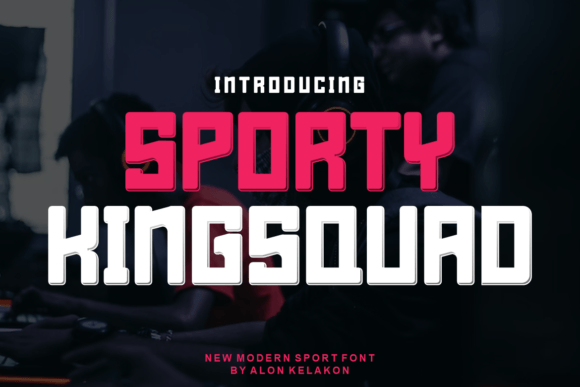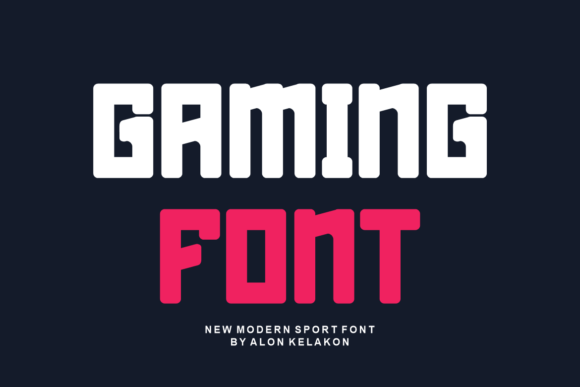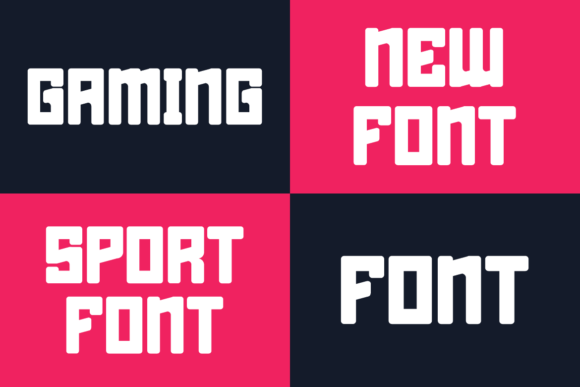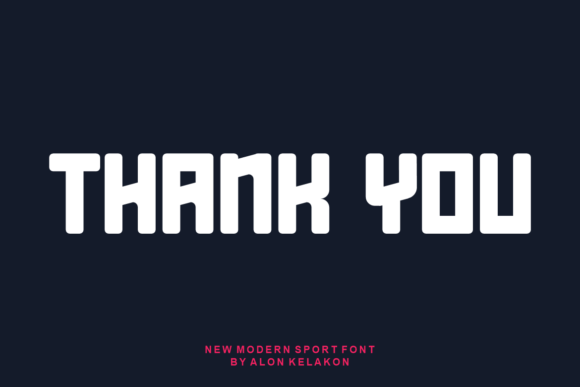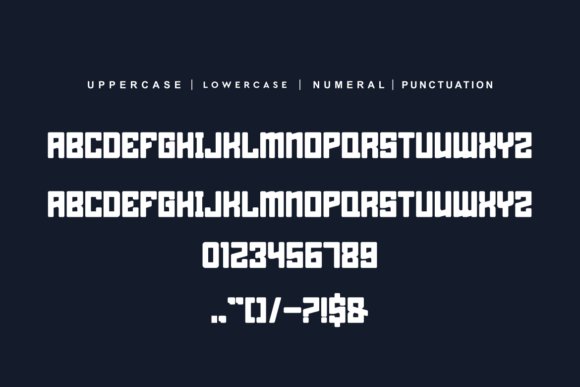
Sporty Kingsquad
Sporty Kingsquad: A Modern and Unique Slab Serif Font
Sporty Kingsquad is a modern and unique slab serif font characterized by distinctive letterforms[2]. This versatile typeface brings contemporary style to various creative applications, from labeling and clothing to movie titles and logos.
Key Features of Sporty Kingsquad
• Modern Design: Offers contemporary slab serif styling[2].
• Unique Style: Features distinctive character designs.
• Versatile Appeal: Adapts well to numerous applications.
• Strong Presence: Creates commanding visual impact[4].
Best Uses for Sporty Kingsquad
Thanks to its versatile characteristics, Sporty Kingsquad works especially well for:
When using Sporty Kingsquad in your designs, keep these tips in mind:
• Try it for headlines to showcase its modern style[4].
• Use its unique character for distinctive projects.
• Take advantage of its versatility across applications.
• Let its strong presence enhance various contexts.
To sum up, Sporty Kingsquad is an excellent choice for designers seeking a modern and unique slab serif font. Its versatility makes it perfect for various creative projects. Whether you’re creating movie titles, designing clothing, or developing logos, Sporty Kingsquad offers the perfect blend of modernity and uniqueness.
Furthermore, Sporty Kingsquad’s distinctive design allows it to shine in contexts where both impact and originality are key. From product labeling to album covers, this font can elevate your projects with its contemporary style. Also, its modern yet readable appearance works particularly well in designs that aim to make a strong impact[4][5].
In conclusion, Sporty Kingsquad truly captures the essence of modern design in slab serif typography. Its ability to work across different applications shows how well it can serve various creative needs. Therefore, for those wanting to add a touch of modern uniqueness to their work, Sporty Kingsquad can enhance any design with its distinctive style. Ultimately, it’s perfect for designers aiming to make a contemporary, memorable impact across creative projects.